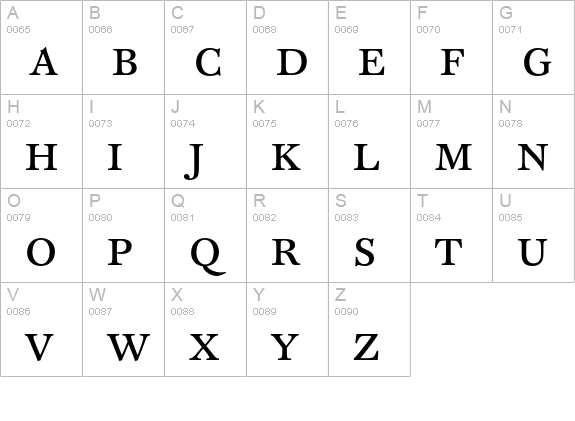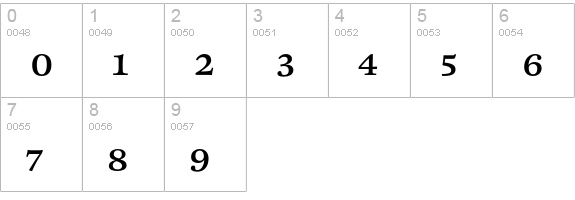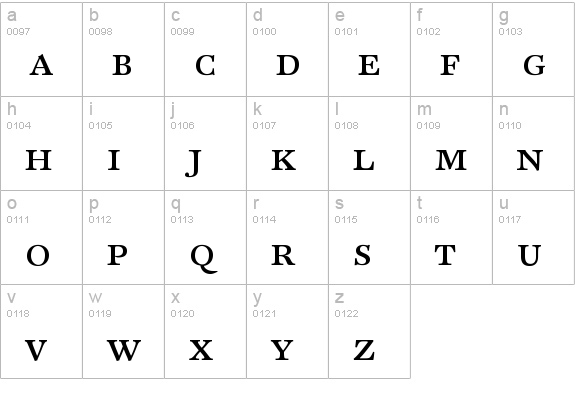
CliffordSix-Caps Font Details
CliffordSix-Caps font is a stunning display typeface that exudes elegance and sophistication. With its intricate details and sharp edges, this font is perfect for creating eye-catching titles and headings. The bold, uppercase characters command attention and make a powerful statement in any design project. What sets CliffordSix-Caps font apart is not just its striking appearance, but also the fact that it is completely free to download. You can easily access this premium-quality font at FontsMarket.com, where it is available for instant download. Whether you're working on a branding project, poster design, or any other creative endeavor, CliffordSix-Caps font is sure to elevate your work to the next level. Don't miss out on this opportunity to enhance your designs with this exquisite font that is both visually captivating and freely accessible.